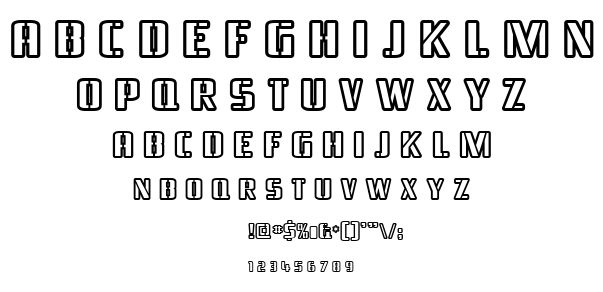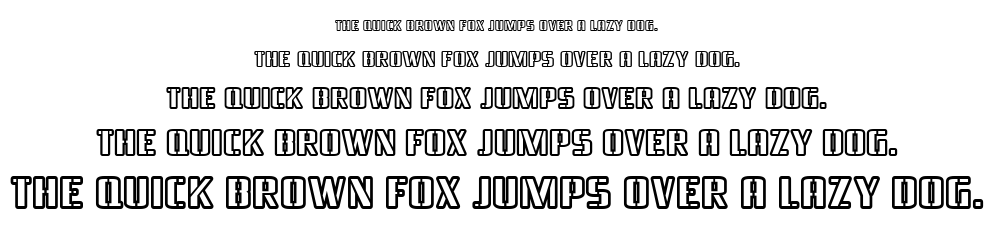
Braeside is a square, industrial stencil font available in regular and outline styles. Don’t forget to read the files inside the zip for details. Updated in 2012.